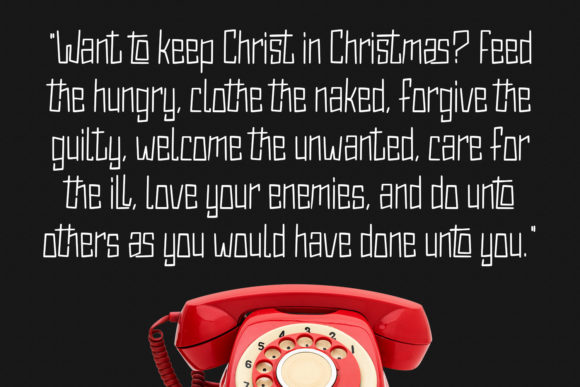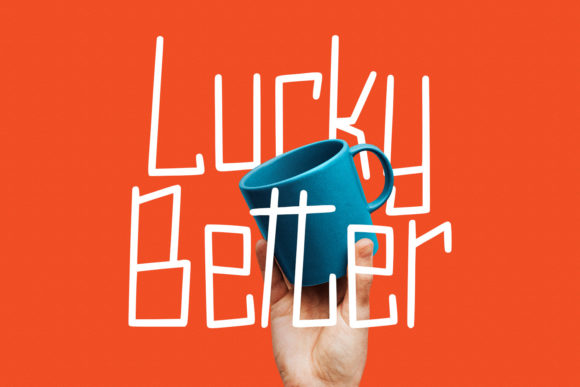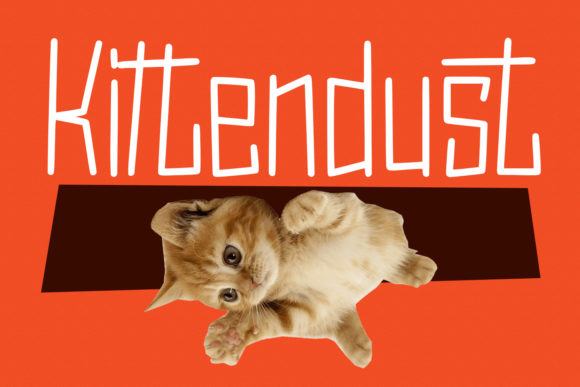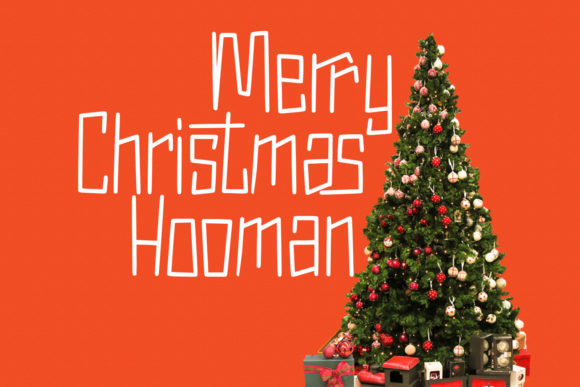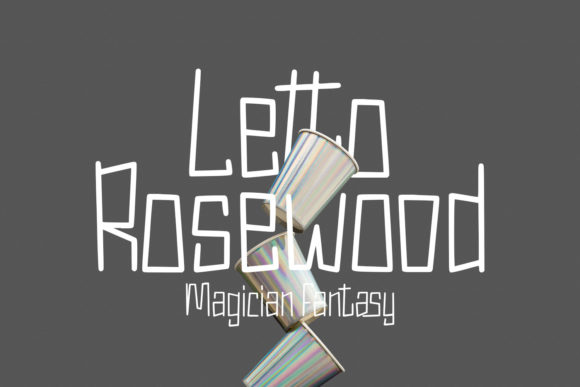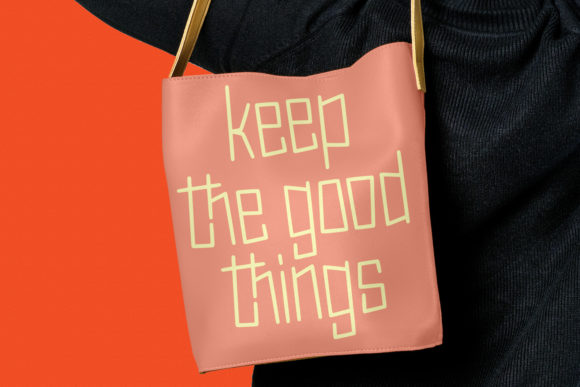
Introduction to Cyber Troops Font
Cyber Troops is a cool, thin and squared lettered display font.
Key Features of Cyber Troops Font
Why Choose Cyber Troops Font?
Cyber Troops Font offers exceptional quality and versatility, making it a valuable addition to your design toolkit. Whether you’re creating for personal projects or commercial use, Cyber Troops Font delivers professional results.